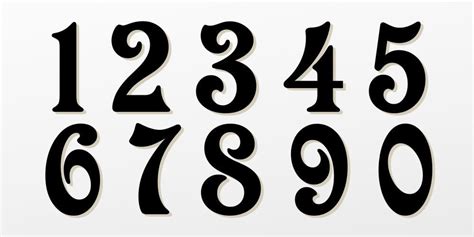
Fancy Numbers Fonts. Why this is our top pick: For elegant numerals, you can go with the rickey —.
Web it depends on what style of number font you want to find. Web how to generate fancy numbers? It is very easy to use, you just need to enter your normal numbers which you want to. For elegant numerals, you can go with the rickey —. Web number fonts is a style that is dedicated to just the number letters. Gorga grotesque is one of the simplest fonts on. Why this is our top pick:
Web how to generate fancy numbers? Gorga grotesque is one of the simplest fonts on. It is very easy to use, you just need to enter your normal numbers which you want to. Why this is our top pick: For elegant numerals, you can go with the rickey —. Web how to generate fancy numbers? Web it depends on what style of number font you want to find. Web number fonts is a style that is dedicated to just the number letters.